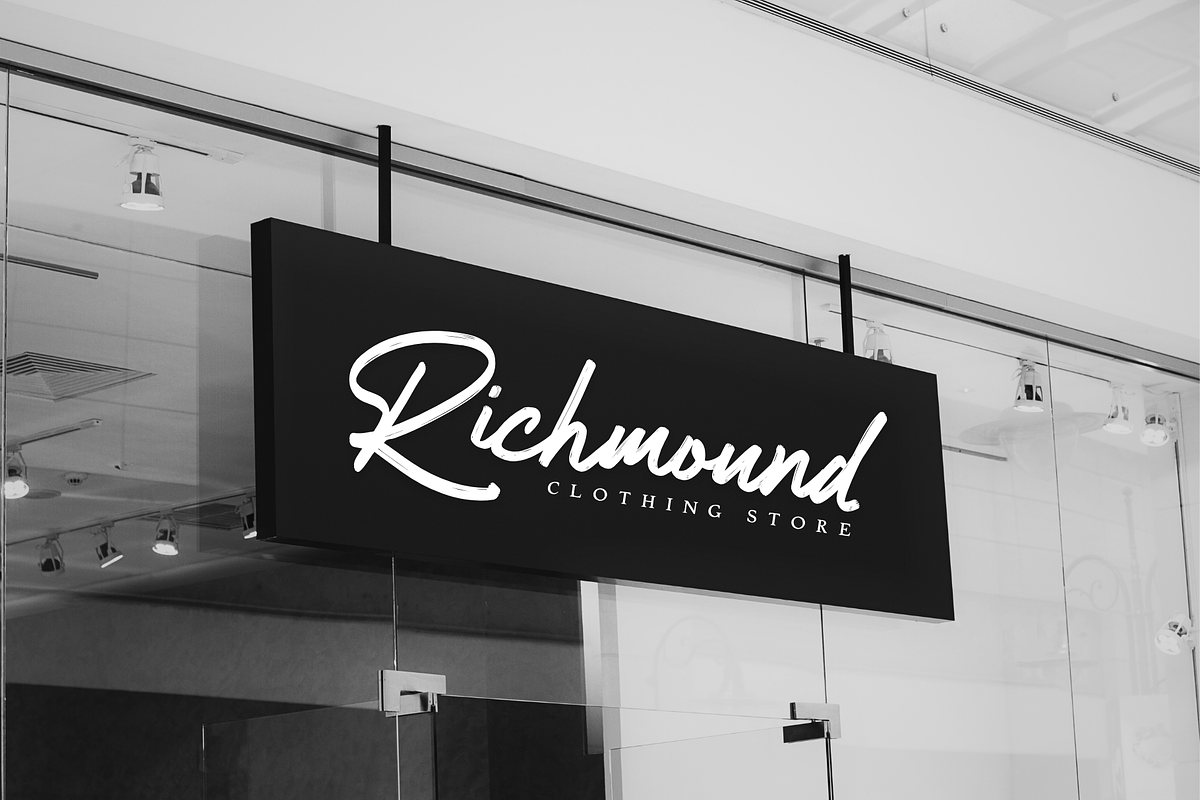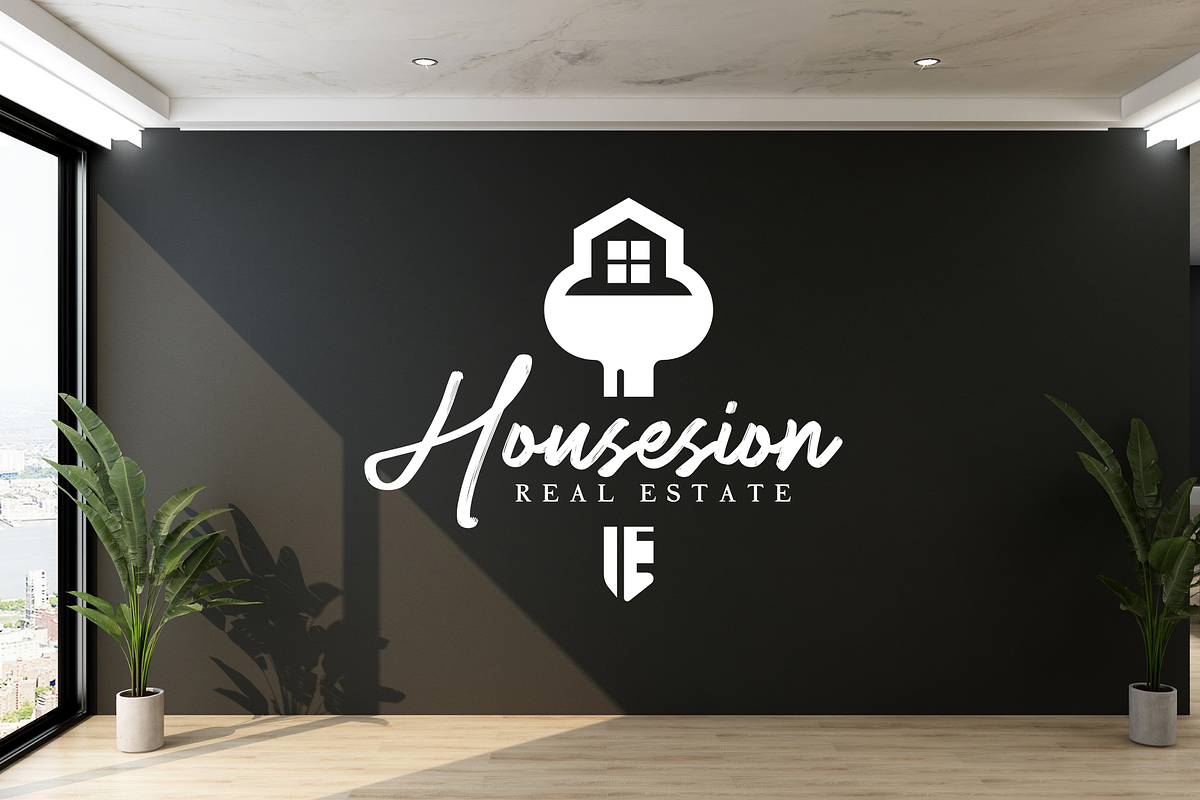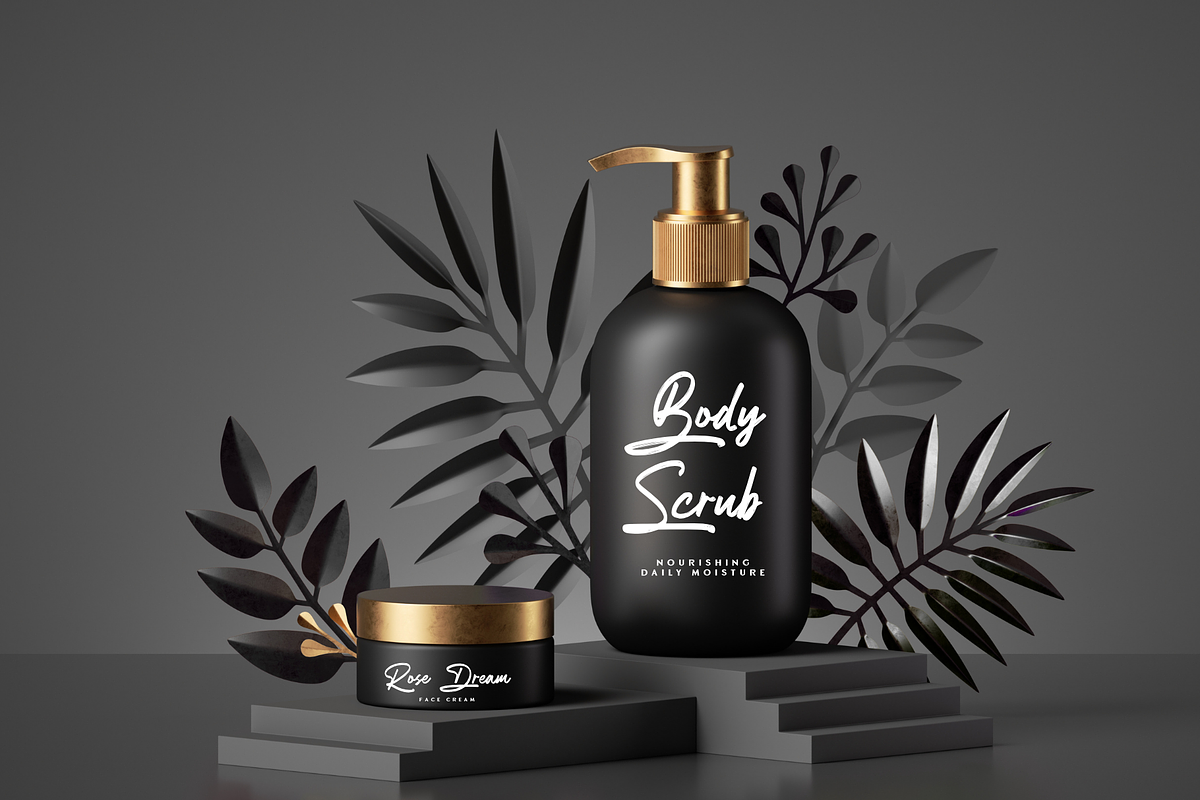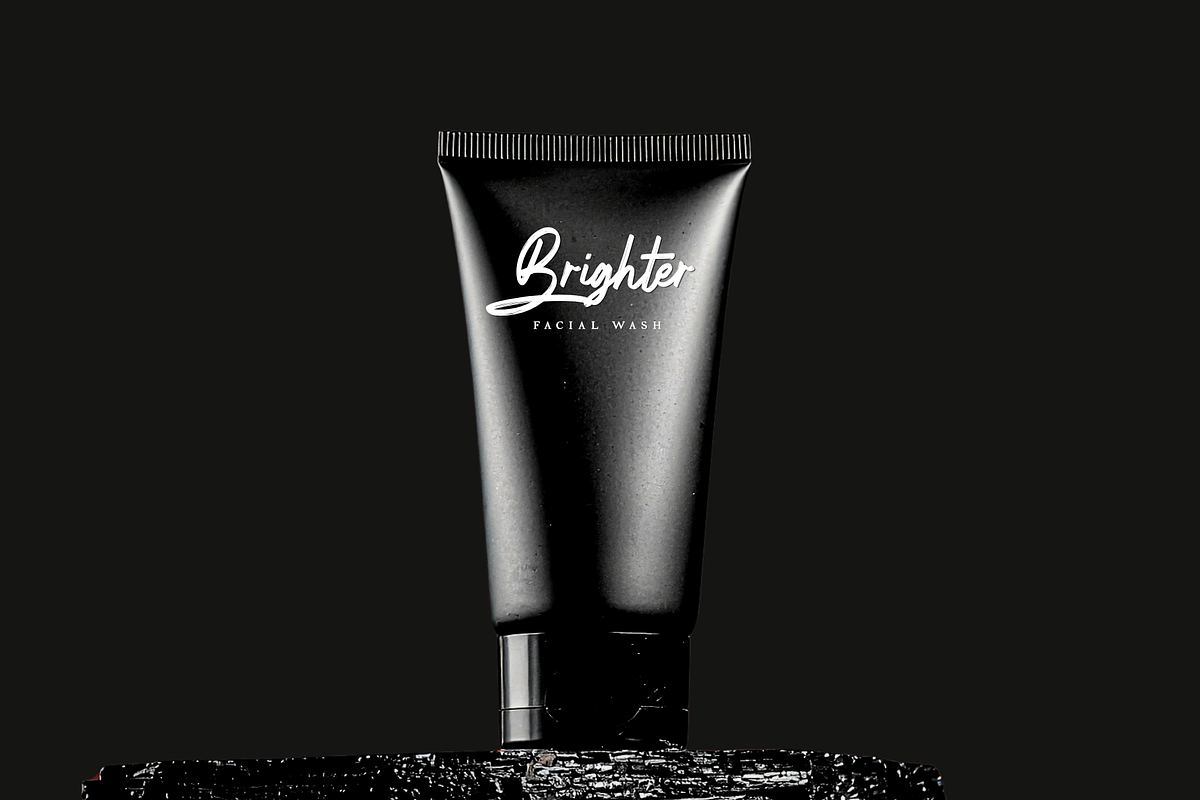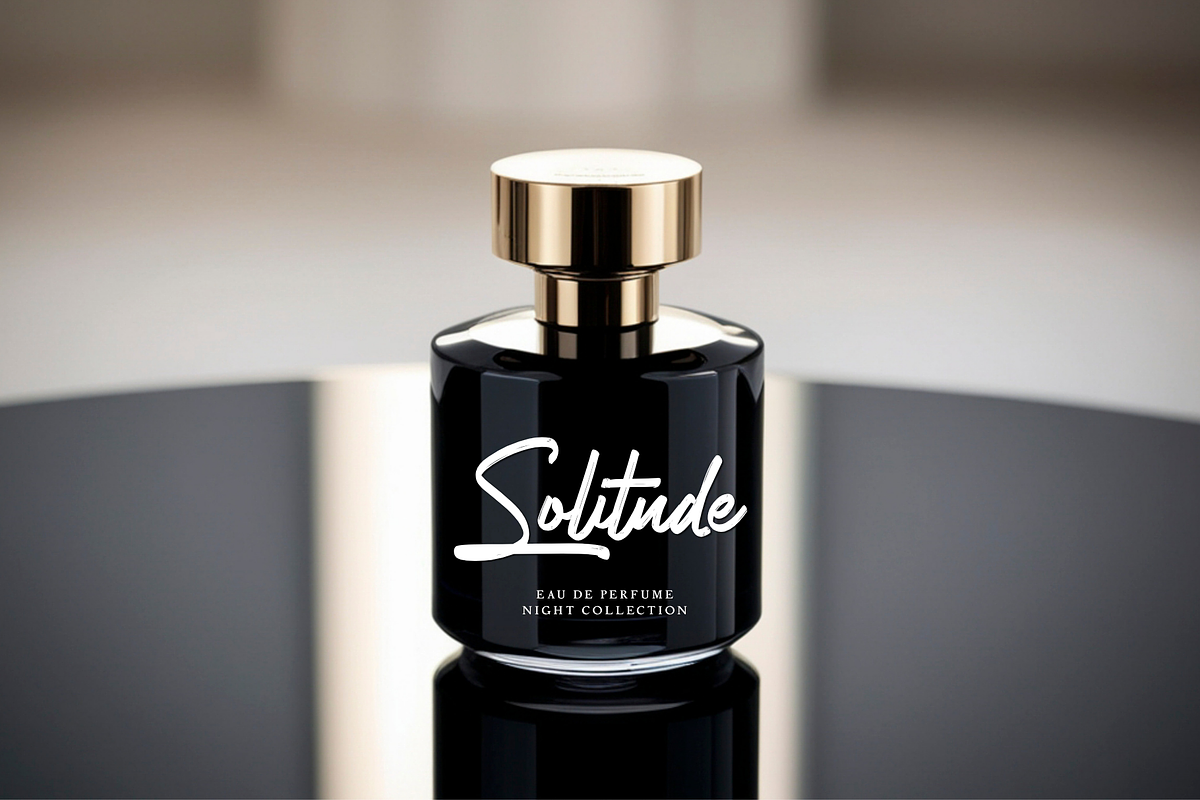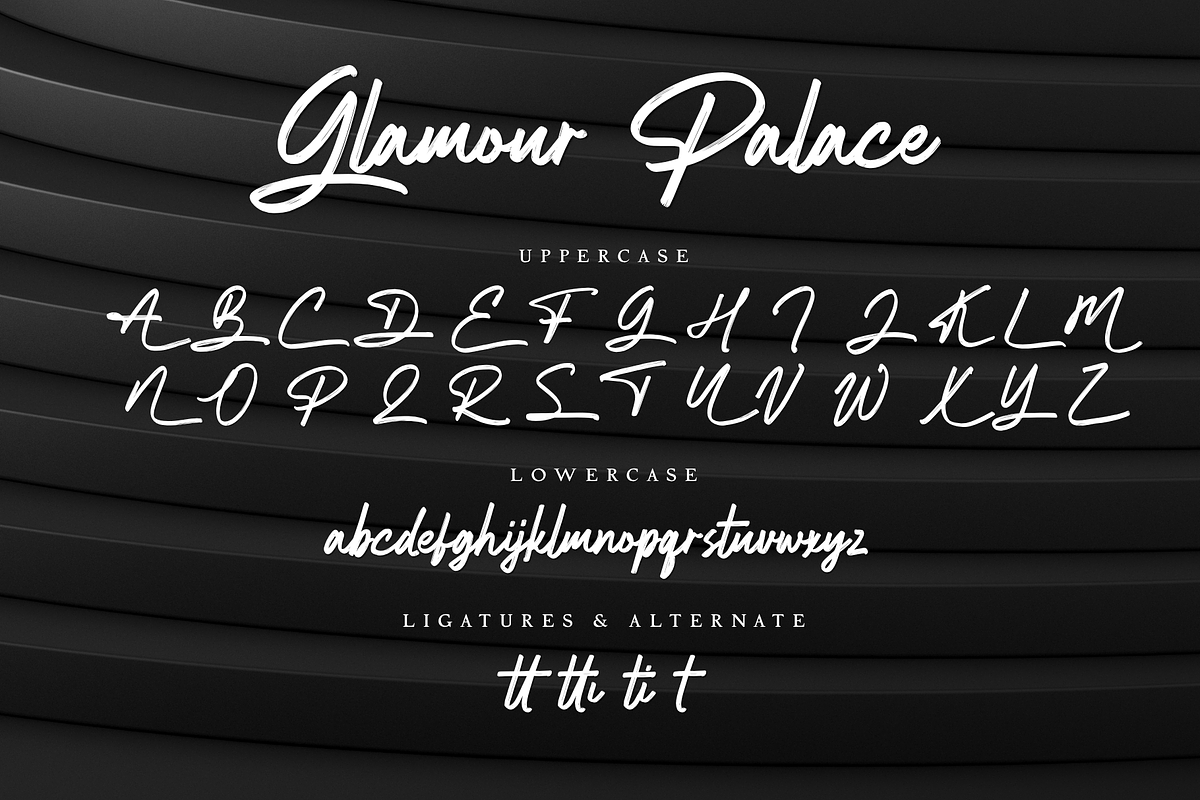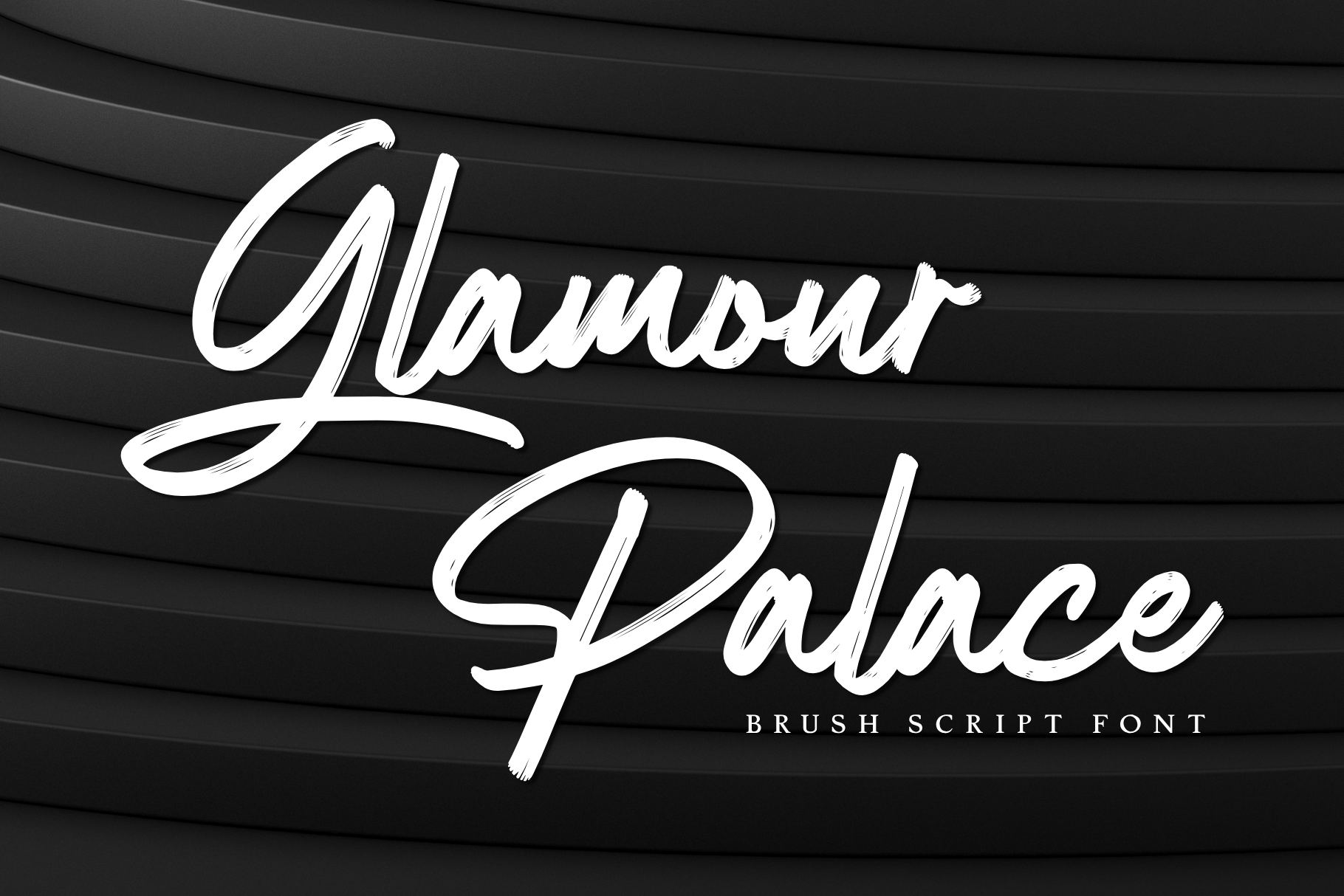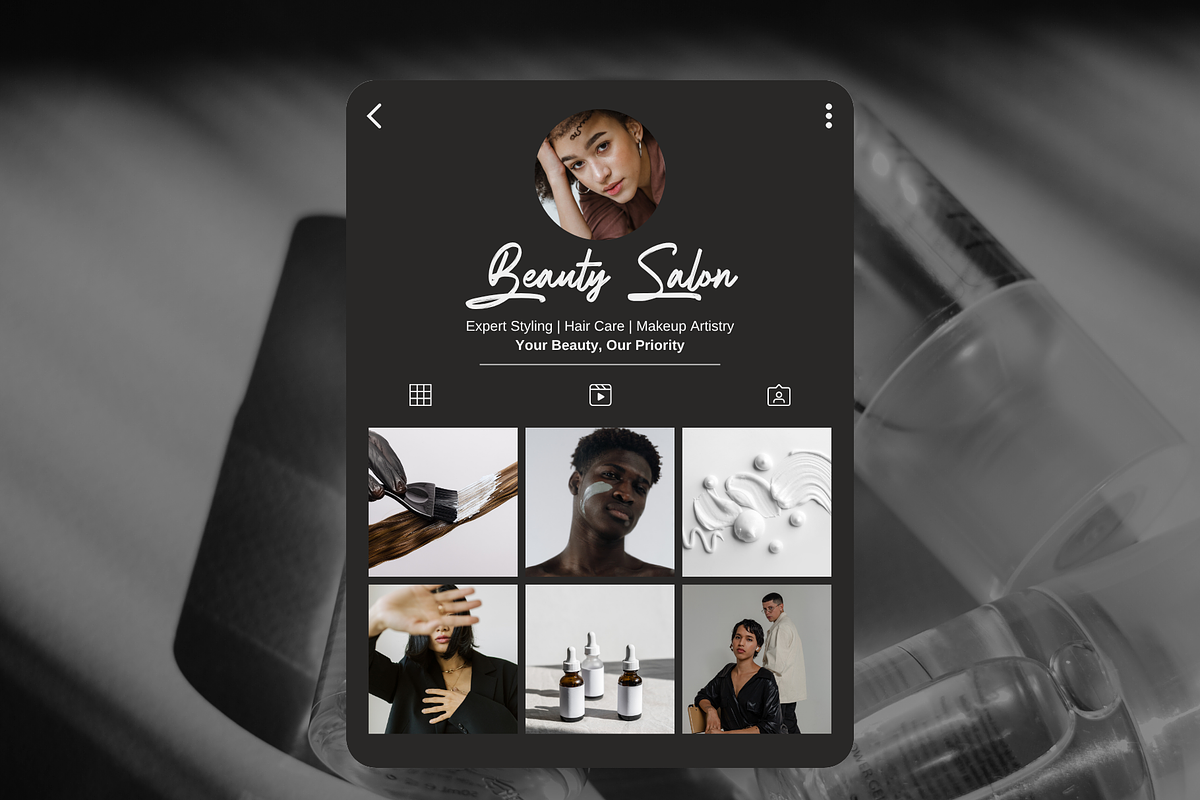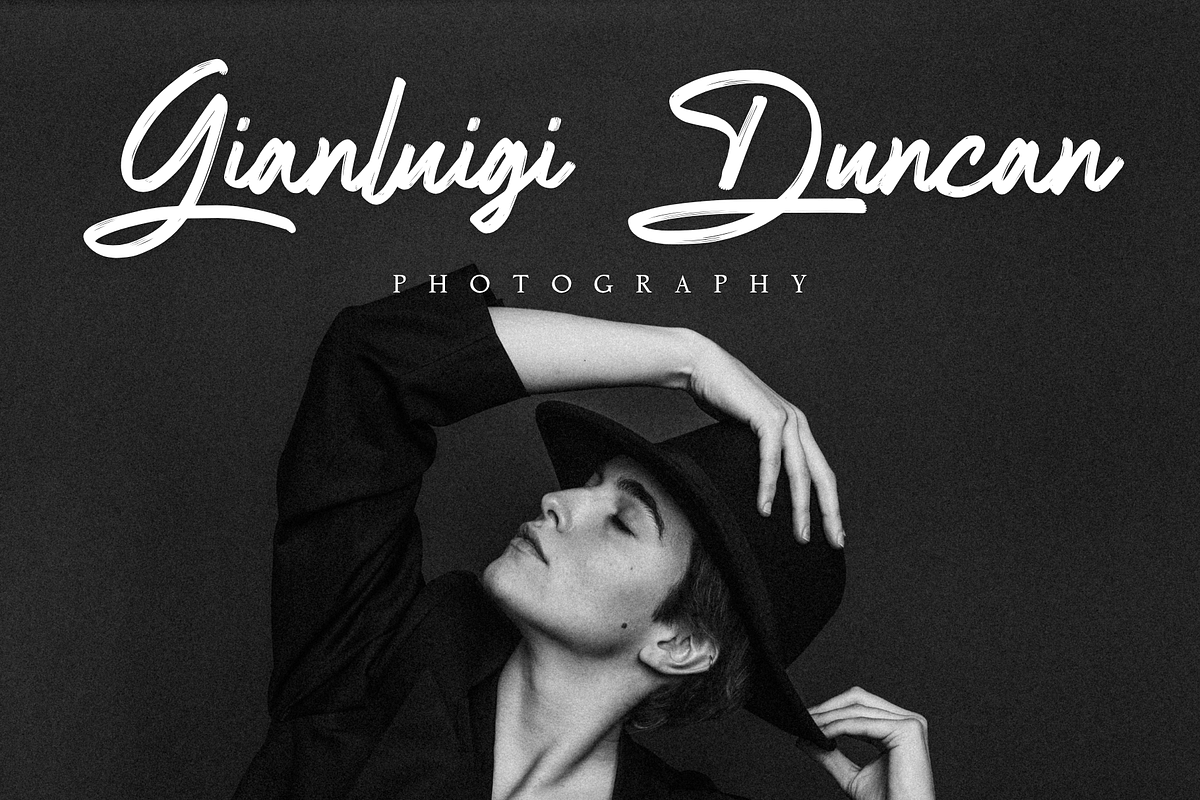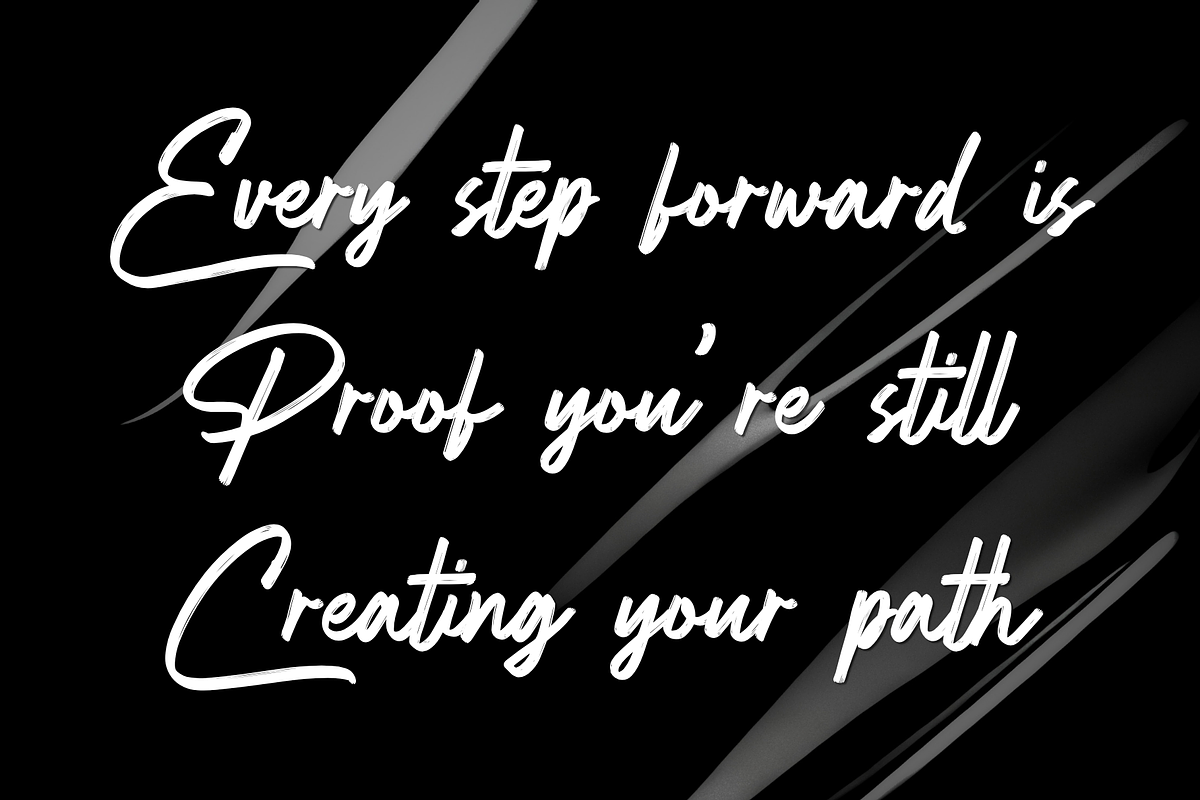
Glamour Palace - Brush Script Font
Glamour Palace is an elegant brush script font designed to bring luxury, charm, and handcrafted sophistication into your creative projects. Inspired by natural signature lettering, this font combines smooth flowing strokes with stylish brush textures, creating a refined and expressive script that feels both personal and premium.
With beautifully designed uppercase characters that create a luxurious signature look for branding, combined with ligatures and alternate characters, Glamour Palace gives you the flexibility to create stunning and distinctive typography compositions. The uppercase letters are crafted to stand out with an elegant, high-end personality, making this font especially perfect for luxury logos, fashion branding, and sophisticated signature-style designs.
Perfect for branding projects, logo design, wedding invitations, cosmetic packaging, fashion editorials, product labels, social media content, stationery, and high-end promotional materials, Glamour Palace adds a graceful and luxurious touch wherever it is used.
Whether you’re designing for feminine branding, beauty products, boutique businesses, or sophisticated signature logos, Glamour Palace offers the versatility and style needed to make your work stand out.
- Elegant Brush Script Style
- Luxury Signature Uppercase
- Uppercase and Lowercase Characters
- Perfect for Branding, Logos, Packaging, and Invitations
Bring timeless elegance and handwritten beauty to your typography collection with Glamour Palace – Brush Script Font.